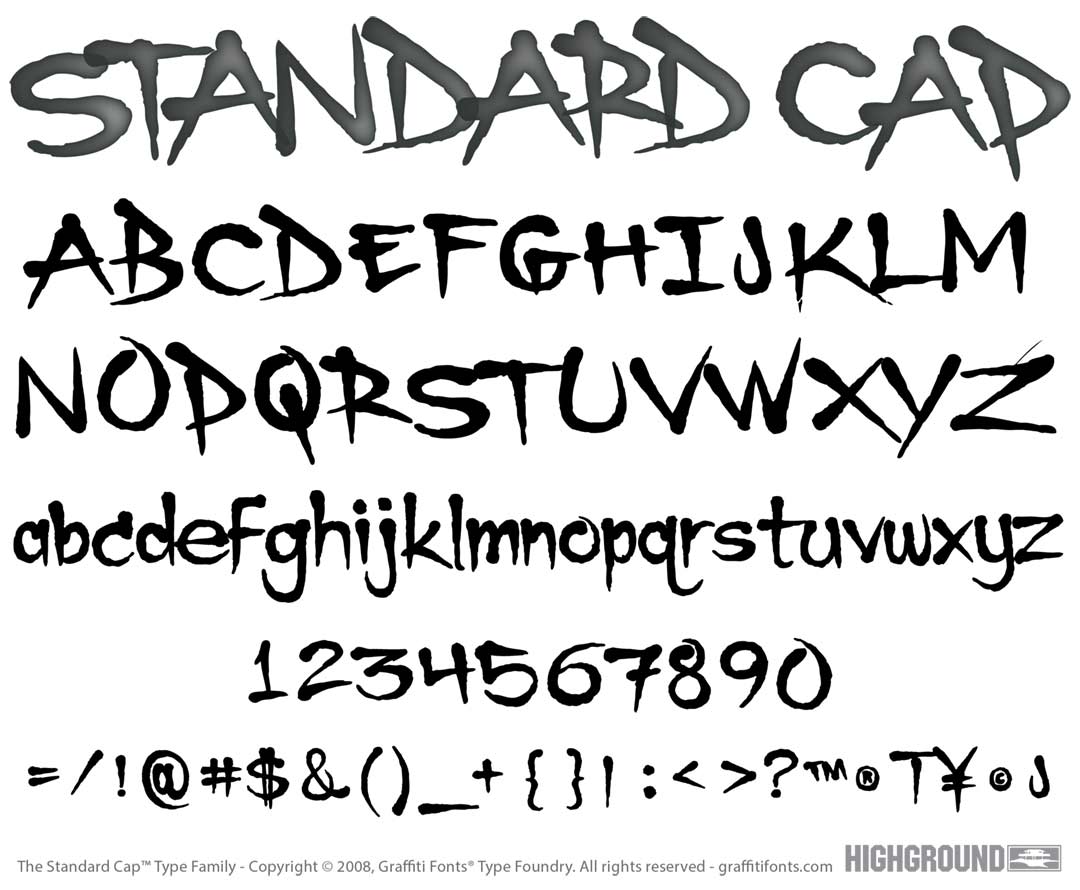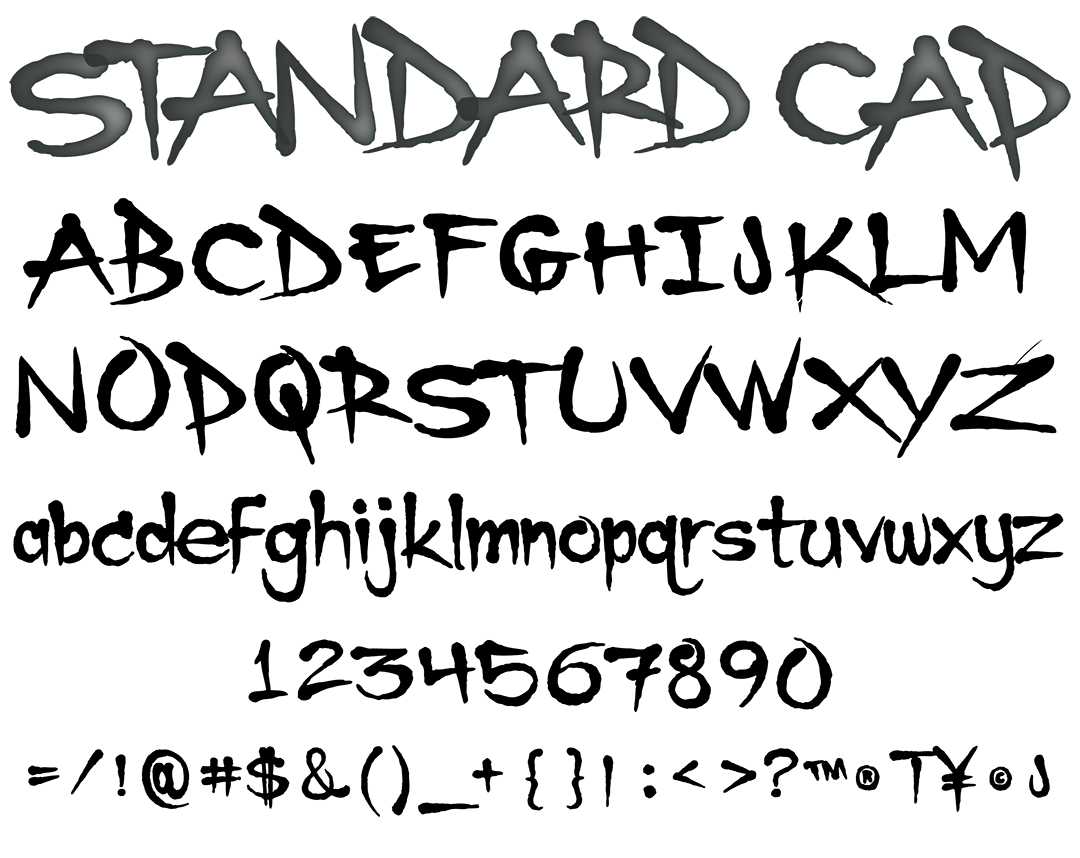
Standard Cap Font
Standard Cap Graffiti Alphabet
Standard Cap Graffiti Font Family
A "Standard Cap" is the cap or "actuator" that comes with your average hardware store spray paint such as Krylon or Rustoleum. These caps release a lot of pressure & have an irregular spray pattern. This font was created to resemble the look of simple tag style writing done with a standard cap. 90 characters in all including uppercase & lowercase alphabets as well as numbers and all the basic punctuation & symbols.